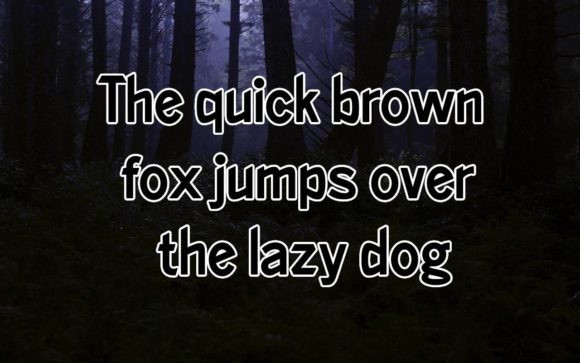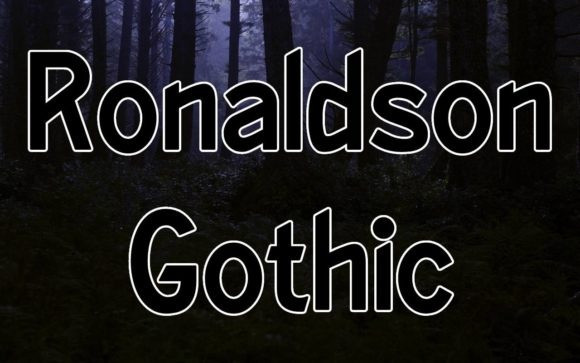
Ronaldson Gothic Font
Ronaldson Gothic Font is a simple gothic font. It has well-balanced characters and as a result, it matches a wide pool of designs. Add it to your most creative ideas and notice how it makes them come alive! This font is PUA encoded which means you can access all of the glyphs and swashes with ease!